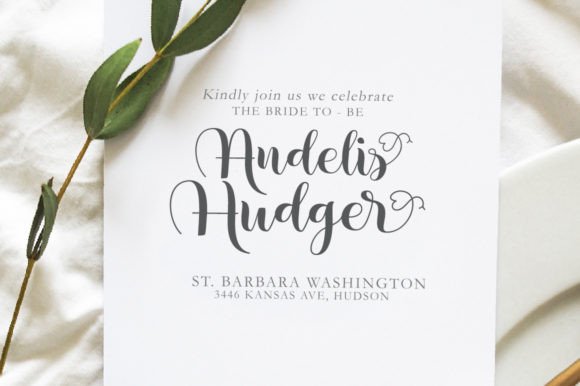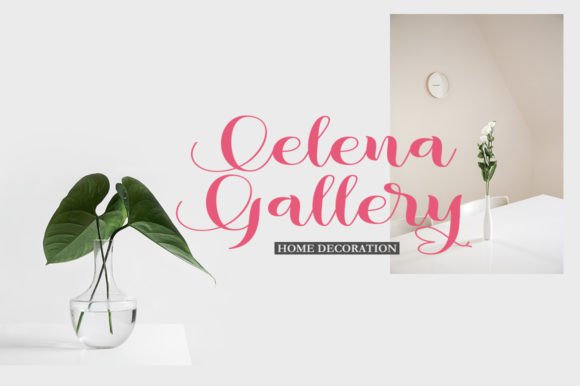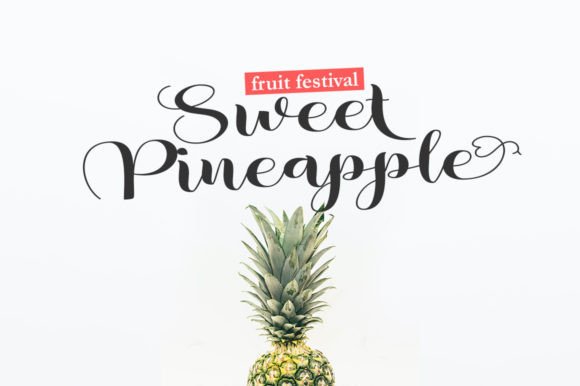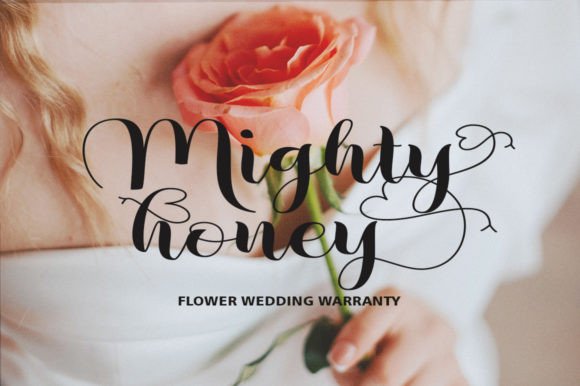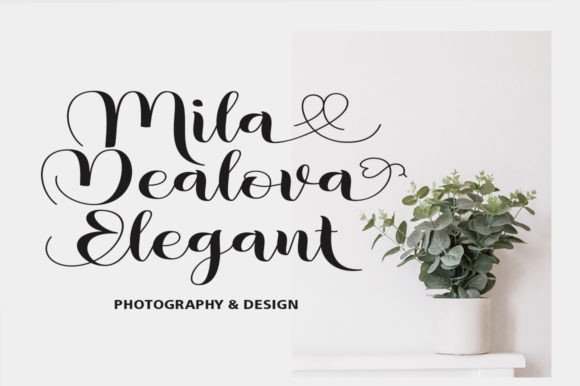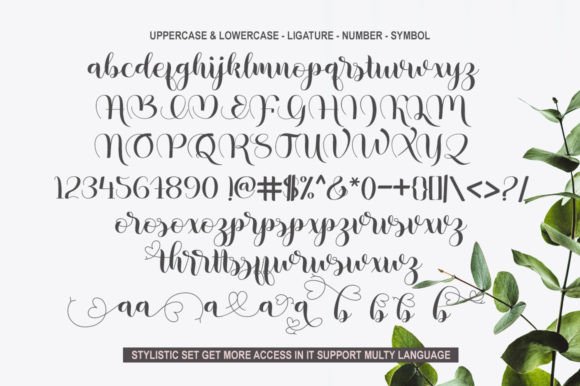
Introducing Hello Cherlie Font: The Perfect Modern Brush Script
Are you on the hunt for a font that exudes a sense of friendliness and modernity? Look no further than Hello Cherlie, a stunning brush script font that’s sure to capture your heart. With its soft terminals and bouncy flair, this font is perfect for designers and crafters seeking a mellow, yet versatile typeface.
The Characteristics of Hello Cherlie
Hello Cherlie is a modern brush script font that boasts a range of desirable characteristics. Its letters have soft terminals, giving them a smooth, rounded appearance that’s both soothing and inviting. The font also features a delightful bounce, which adds a touch of playfulness and whimsy to any design.
One of the standout features of Hello Cherlie is its versatility. This font is perfect for a wide range of projects, from branding and packaging to social media graphics and invitations. Whether you’re looking to create a bold statement or a more subtle design, Hello Cherlie has the flexibility to adapt to your needs.
What Makes Hello Cherlie So Special?
So, what sets Hello Cherlie apart from other fonts on the market? Here are just a few reasons why this font is a cut above the rest:
- Modern and Fresh: Hello Cherlie has a distinctly modern feel, making it perfect for designers and brands looking to stay on-trend.
- Friendly and Approachable: The soft terminals and bouncy nature of this font give it a friendly, approachable vibe that’s hard to resist.
- Highly Versatile: Whether you’re working on a digital project or a print design, Hello Cherlie can adapt to any style or format.
- Easy to Read: Despite its playful nature, Hello Cherlie remains highly legible, making it perfect for use in body text or headlines.
How to Use Hello Cherlie in Your Designs
Ready to get started with Hello Cherlie? Here are a few ideas for incorporating this beautiful font into your designs:
- Branding and Packaging: Use Hello Cherlie to create eye-catching logos, labels, and packaging that stands out on store shelves.
- Social Media Graphics: Add a touch of personality to your social media graphics with Hello Cherlie’s playful, modern script.
- Invitations and Stationery: Create beautiful, one-of-a-kind invitations and stationery with Hello Cherlie’s elegant, cursive flow.
- Web Design: Use Hello Cherlie to add a splash of personality to your website’s headers, titles, and other design elements.
Tips for Getting the Most Out of Hello Cherlie
To get the most out of Hello Cherlie, here are a few tips to keep in mind:
- Experiment with Colors: Hello Cherlie looks stunning in a range of colors, so don’t be afraid to get creative and try out different hues.
- Mix and Match: Combine Hello Cherlie with other fonts to create a unique, layered look that’s all your own.
- Play with Size: Hello Cherlie looks great in a range of sizes, from large headlines to smaller body text.
In conclusion, Hello Cherlie is a modern brush script font that’s sure to delight designers and crafters alike. With its soft terminals, bouncy flair, and versatile nature, this font is perfect for a wide range of projects. Whether you’re looking to create a bold statement or a more subtle design, Hello Cherlie has the flexibility to adapt to your needs. So why wait? Give Hello Cherlie a try today and see the difference it can make in your designs!